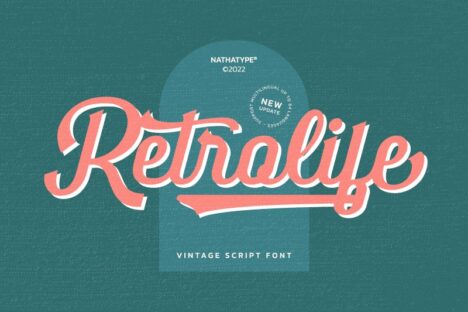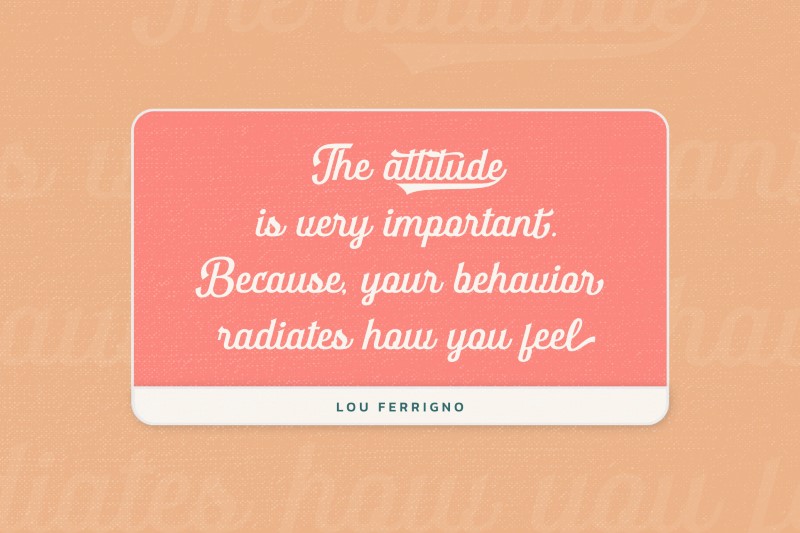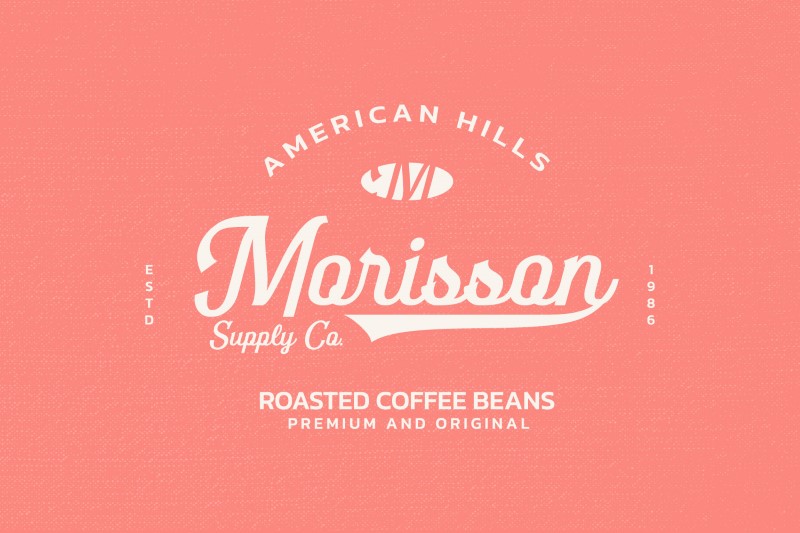
Retrolife is a retro-nuanced script font in thick weight and strokes among letters to make it as natural as a handwriting and highly legible. For maximum legibility, you ought to apply the font for bigger-sized texts, which is better in the extrude version. In addition, you can enjoy the available features here.)
- Stylistic Set
- Swashes
- Multilingual Supports
Retrolife fits for any design projects, such as posters, logos, book covers, album covers, quotes, headings, printed products, merchandise, social media, etc. Find out more ways to use this font by taking a look at the font preview.